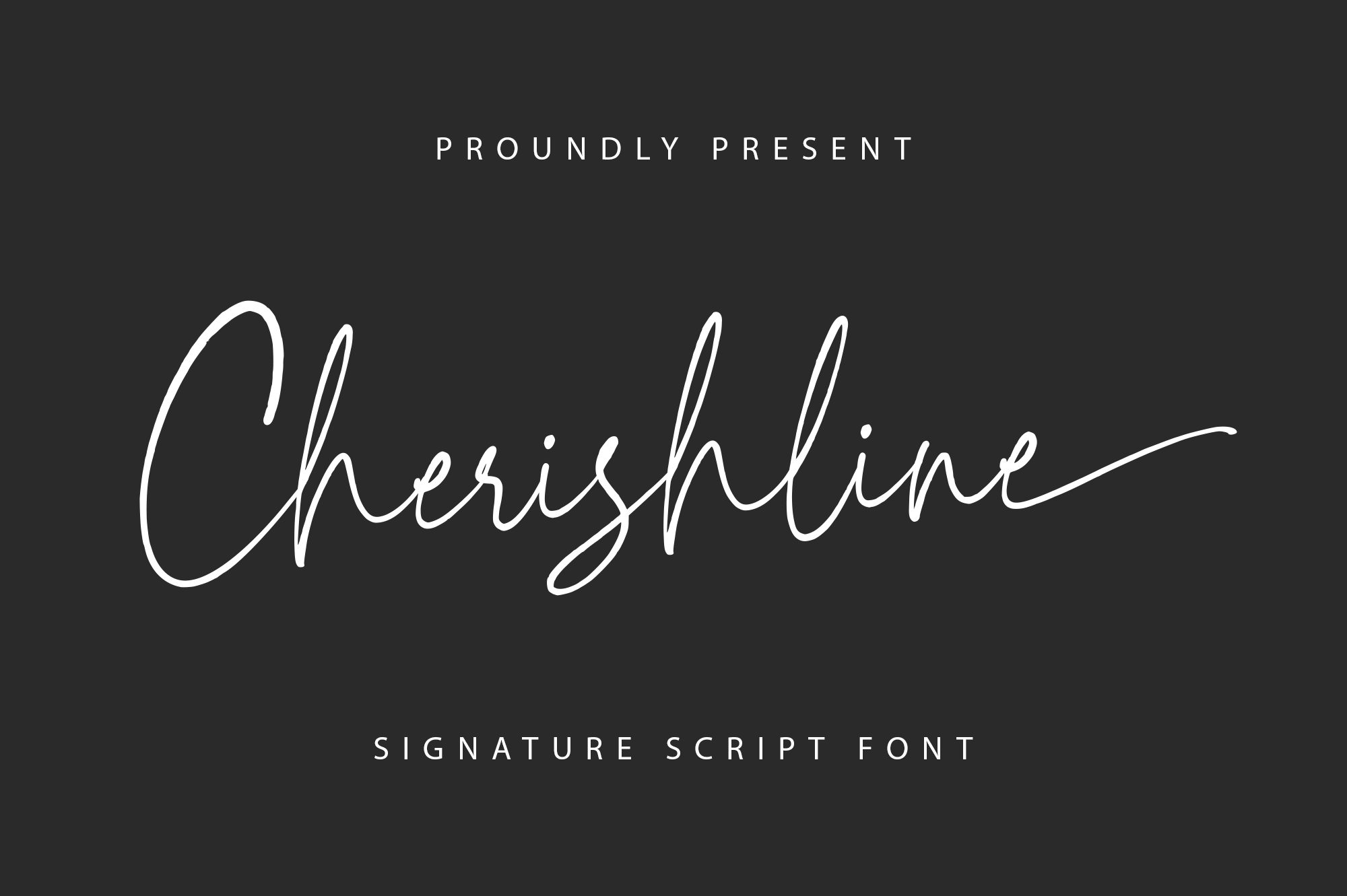
Cherishline Script Font
Cherishline Script is a thin lettered and graceful script font. Fall for its ravishing style and use it to create gorgeous wedding invitations, beautiful stationary art, eye-catching social media posts, and much more! Cherishline Script is PUA encoded which means you can access all glyphs and swashes with ease!
Use the fonts for: logos, branding materials, wedding sign, wedding website card, farmhouse signs, sign bridal, shirts, pantry labels, sign bridal shower, business cards, greeting cards, wall decor, social media, planner prints and websites.